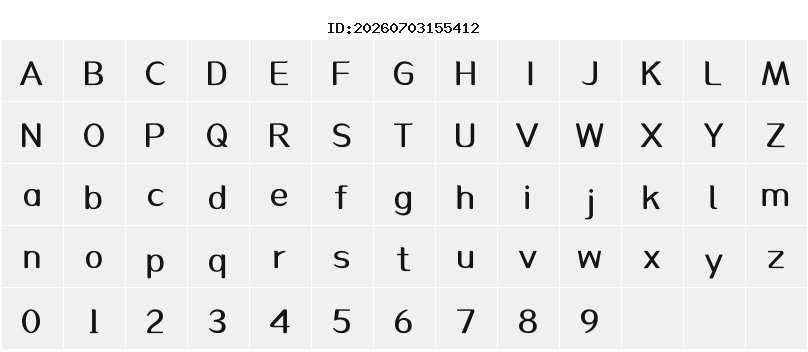
014-上首水滴体 Preview
About 014-上首水滴体.ttf
014-上首水滴体.ttf is a modern, elegant sans-serif font designed for ultimate readability and visual harmony. Perfect for branding, headlines, web design, and print materials.